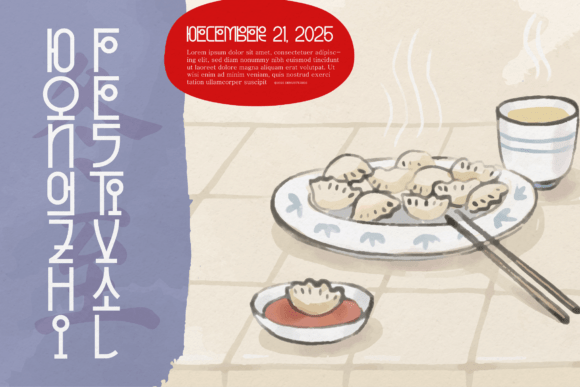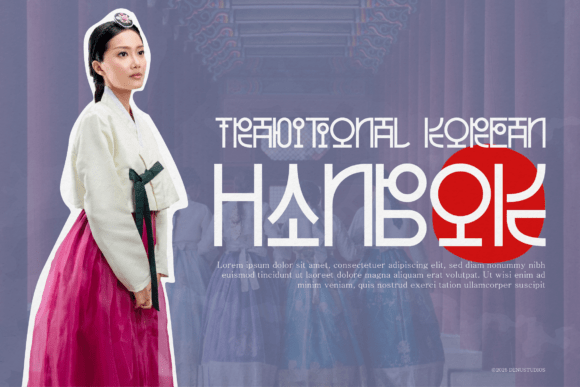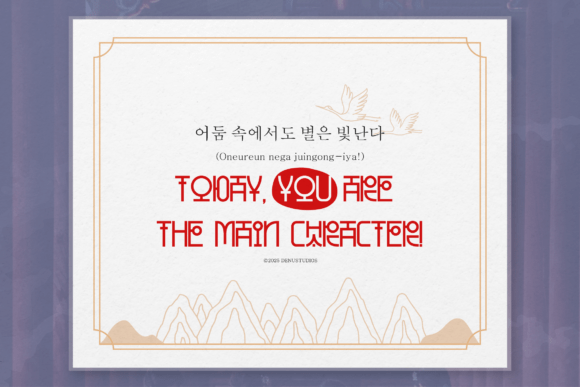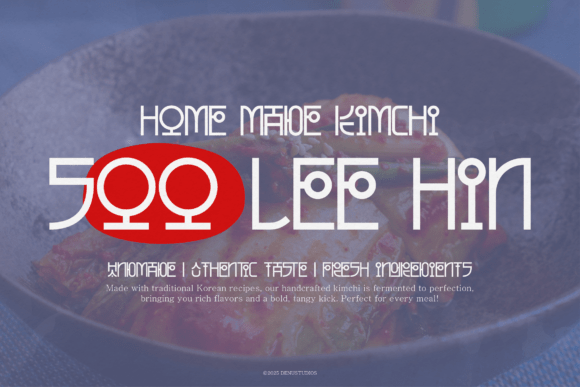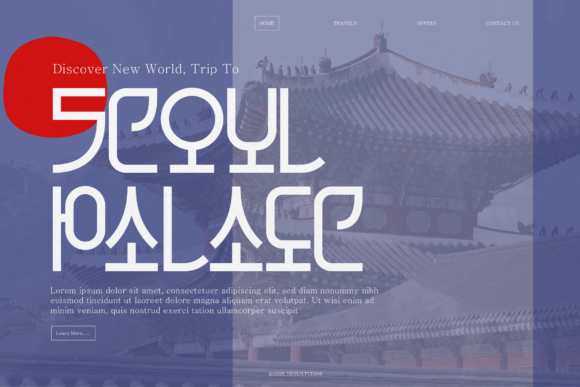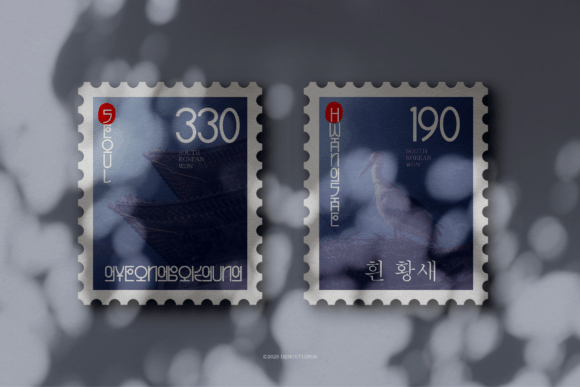
Introducing Hot Haeun: A Modern Korean-Inspired Display Font
In the world of typography, fonts play a crucial role in conveying messages, evoking emotions, and creating visual identities. For designers and crafters looking to infuse their projects with a touch of Eastern elegance, Hot Haeun is a game-changing font that seamlessly blends traditional Korean elements with modern design sensibilities. In this article, we’ll explore the features, benefits, and uses of Hot Haeun, a bold and modern Korean-inspired display font that’s perfect for cultural projects, branding, logos, posters, and editorial designs.
A Perfect Blend of Tradition and Modernity
Hot Haeun is a stunning example of how traditional and modern design elements can come together to create something truly unique. This font features clean geometric shapes, ligatures, and unique alternates that give it a distinctive edge. The result is a typeface that exudes a sense of sophistication and cultural depth, making it perfect for projects that require a touch of Eastern flair.
Key Features of Hot Haeun
- Clean Geometric Shapes: Hot Haeun’s geometric shapes give it a modern and sleek appearance, making it perfect for designs that require a contemporary look and feel.
- Ligatures and Unique Alternates: The font’s ligatures and alternates add a touch of elegance and sophistication, allowing designers to create visually appealing text arrangements.
- Multilingual Support: With over 260+ glyphs, Hot Haeun offers extensive multilingual support, making it an excellent choice for projects that require text in multiple languages.
- Versatility: Hot Haeun’s versatility makes it perfect for a wide range of applications, from cultural projects and branding to logos, posters, and editorial designs.
Uses of Hot Haeun
Hot Haeun’s unique blend of traditional and modern design elements makes it an excellent choice for various design projects. Here are some of the ways you can use Hot Haeun:
- Cultural Projects: Hot Haeun is perfect for cultural projects that require a touch of Eastern elegance, such as documentaries, exhibitions, or festivals celebrating Korean culture.
- Branding and Logos: The font’s bold and modern appearance makes it an excellent choice for branding and logo design, particularly for companies that want to convey a sense of sophistication and cultural depth.
- Posters and Editorial Designs: Hot Haeun’s unique features and versatility make it perfect for posters, magazine covers, and editorial designs that require a touch of elegance and sophistication.
Benefits of Using Hot Haeun
Hot Haeun offers several benefits for designers and crafters looking to add a touch of Eastern elegance to their projects. Here are some of the advantages of using Hot Haeun:
- Unique Visual Identity: Hot Haeun’s distinctive design elements create a unique visual identity that sets it apart from other fonts.
- Cultural Significance: The font’s Korean-inspired design elements add a touch of cultural significance, making it perfect for projects that require a sense of cultural depth.
- Time-Saving: With its extensive multilingual support and versatility, Hot Haeun saves designers time and effort, allowing them to focus on other aspects of their projects.
Hot Haeun is a bold and modern Korean-inspired display font that offers a unique blend of traditional and modern design elements. With its clean geometric shapes, ligatures, and unique alternates, this typeface is perfect for cultural projects, branding, logos, posters, and editorial designs with an Eastern aesthetic. Its extensive multilingual support and versatility make it an excellent choice for creative professionals looking to add a touch of elegance and sophistication to their projects. Whether you’re a designer, crafter, or simply someone looking to explore the world of typography, Hot Haeun is an excellent addition to your font collection.